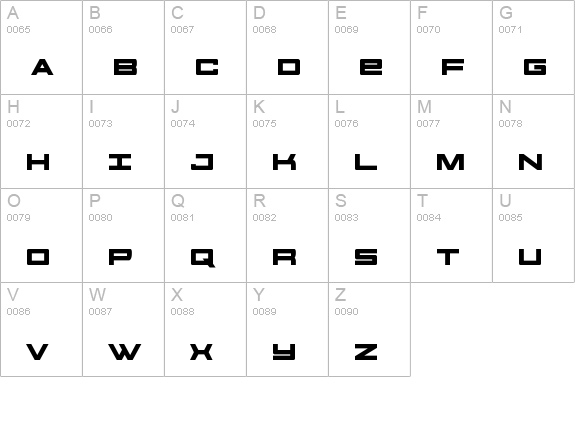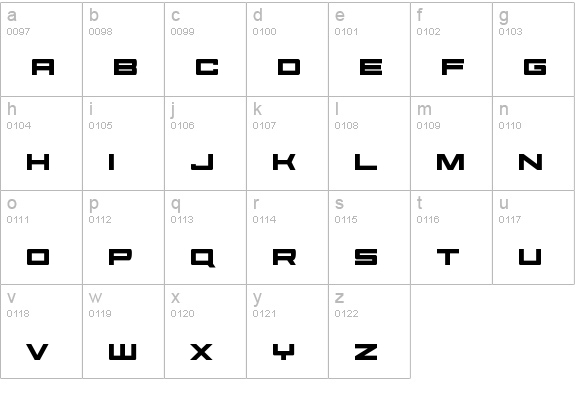
Future Forces Font Details
Future Forces is a donationware font in the Modern > Sci-Fi category, designed by Iconian. It has been downloaded 163 times and is available for Windows, Mac and Linux.
The Future Forces font is a captivating and futuristic typeface that exudes strength and power. Its sharp edges and bold design make it perfect for projects that require a modern and dynamic look. The font is versatile and can be used for a variety of purposes, from branding to poster designs.